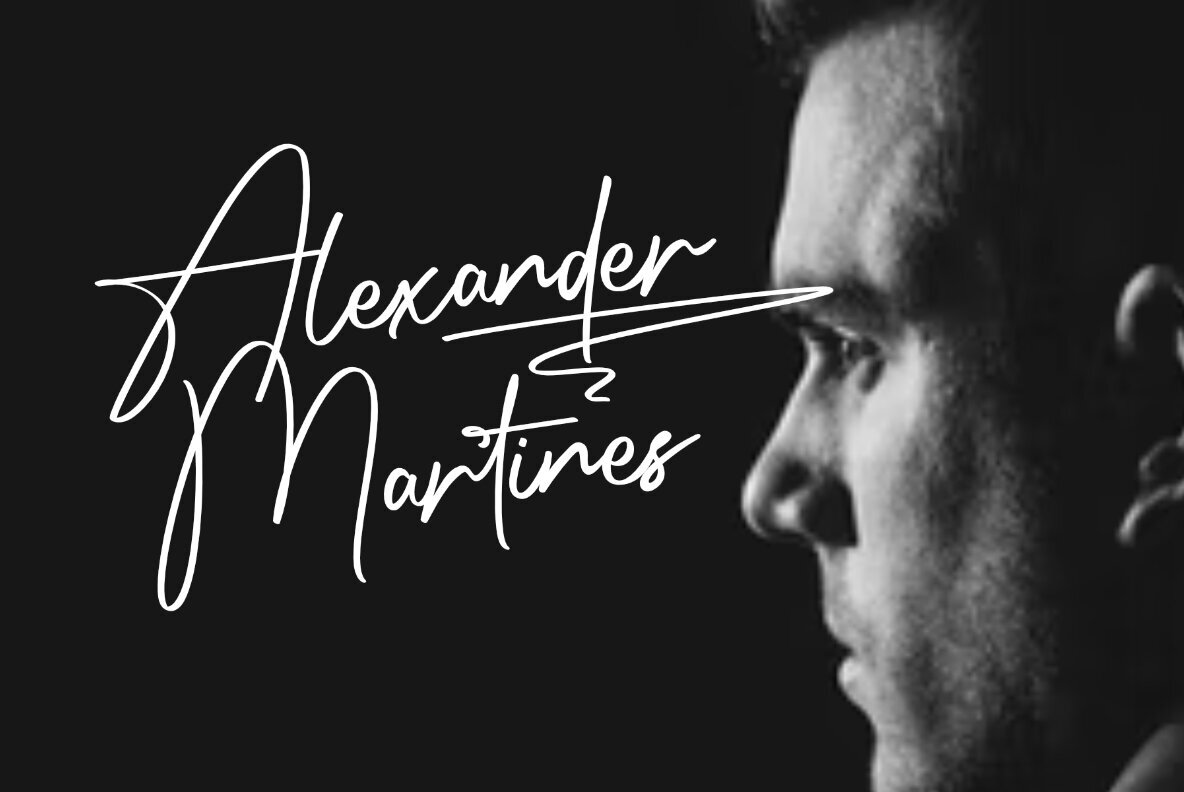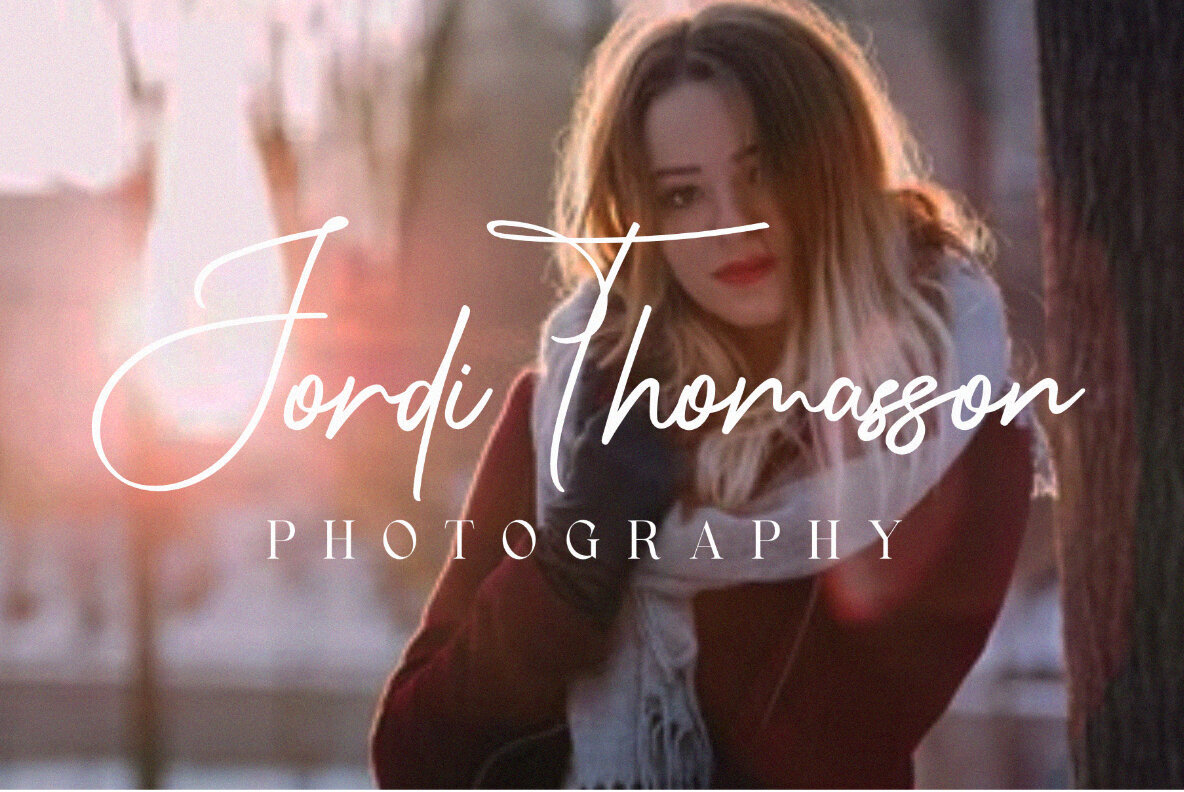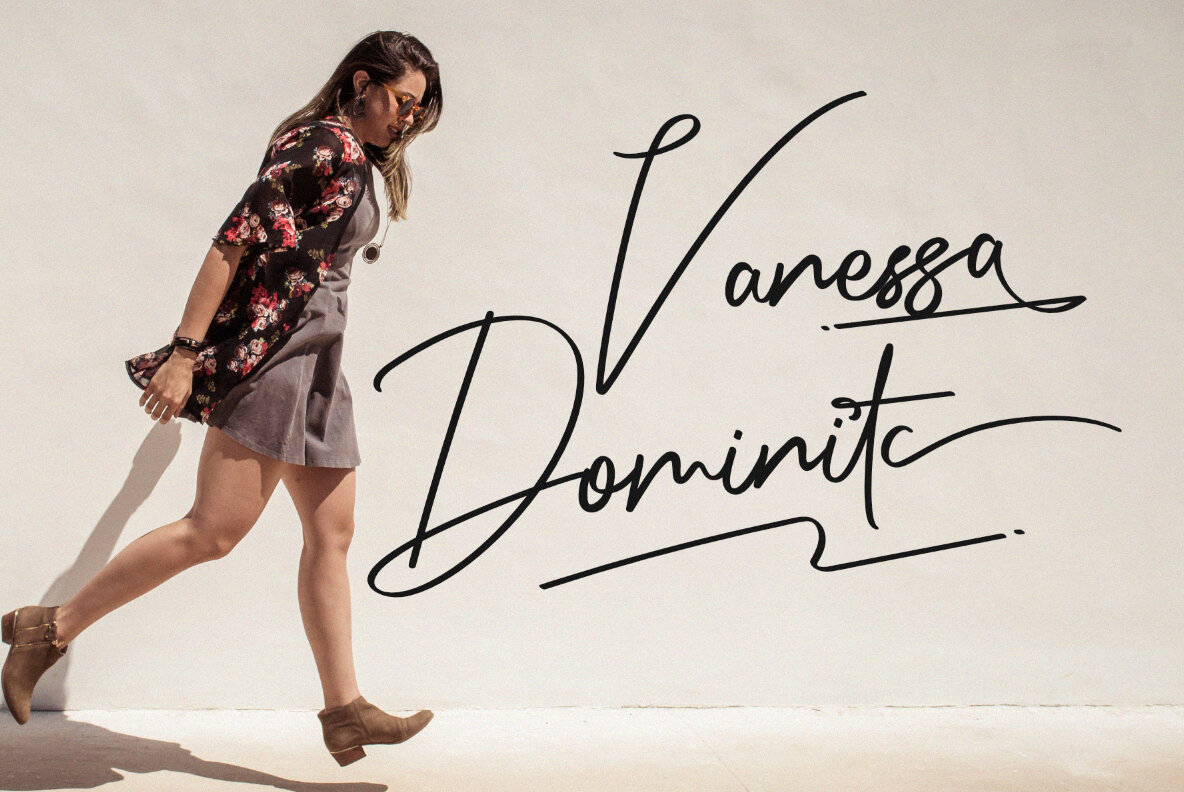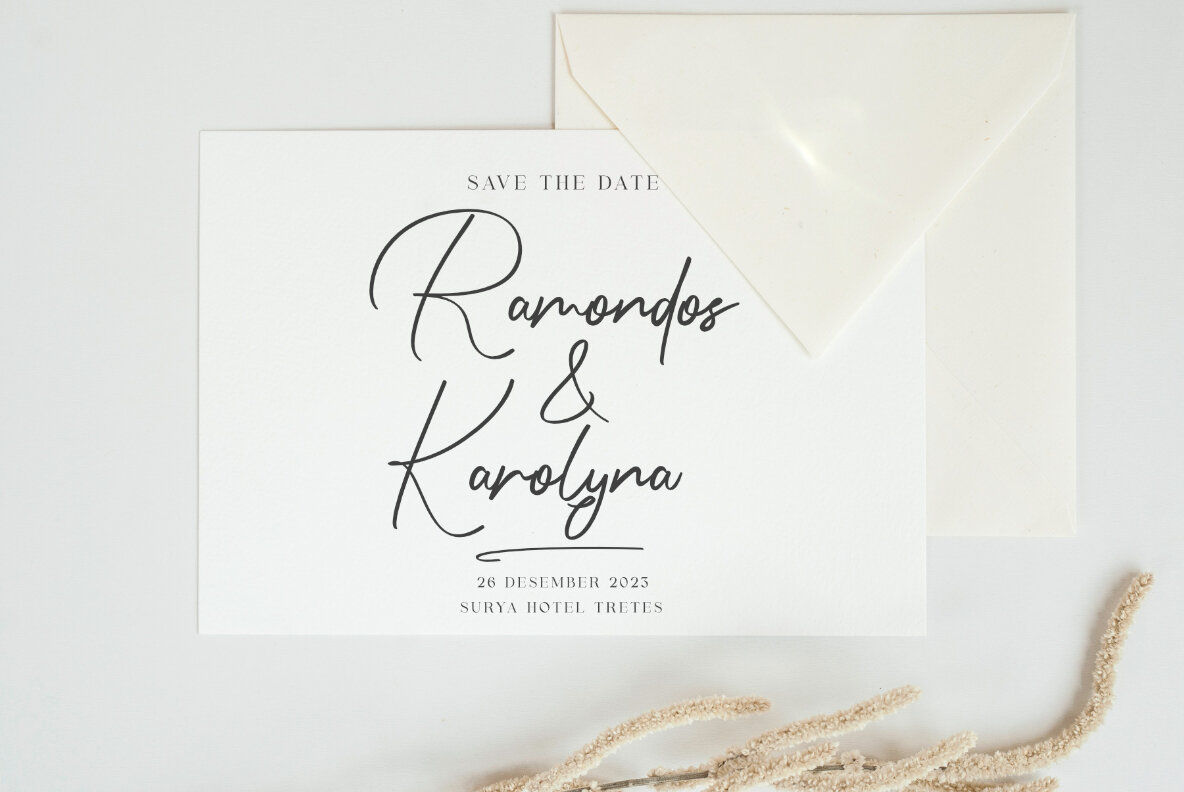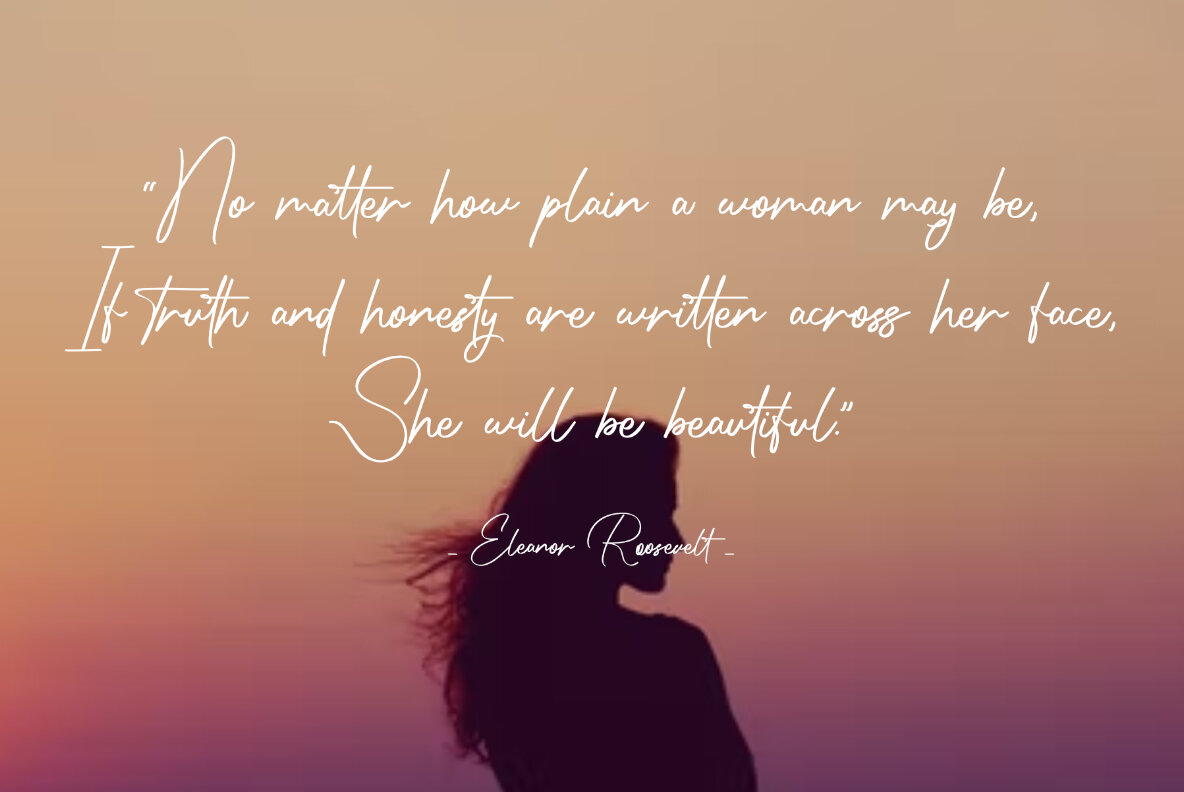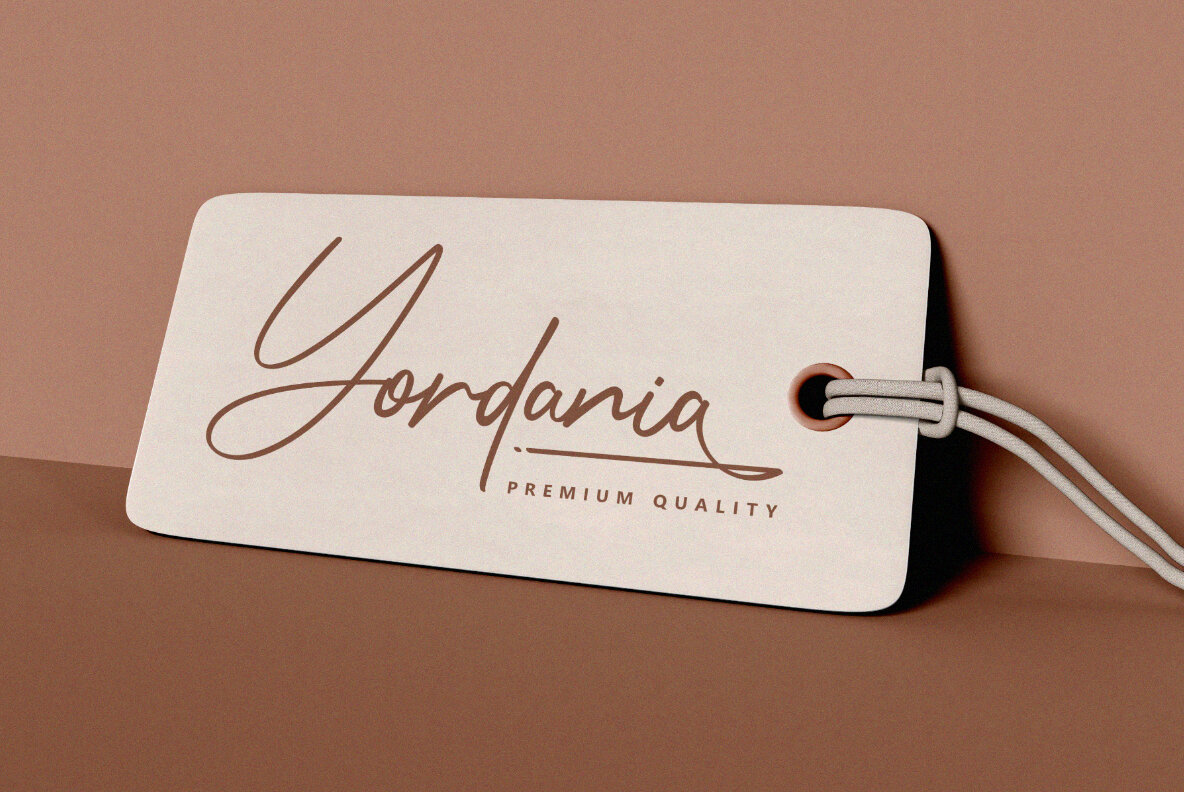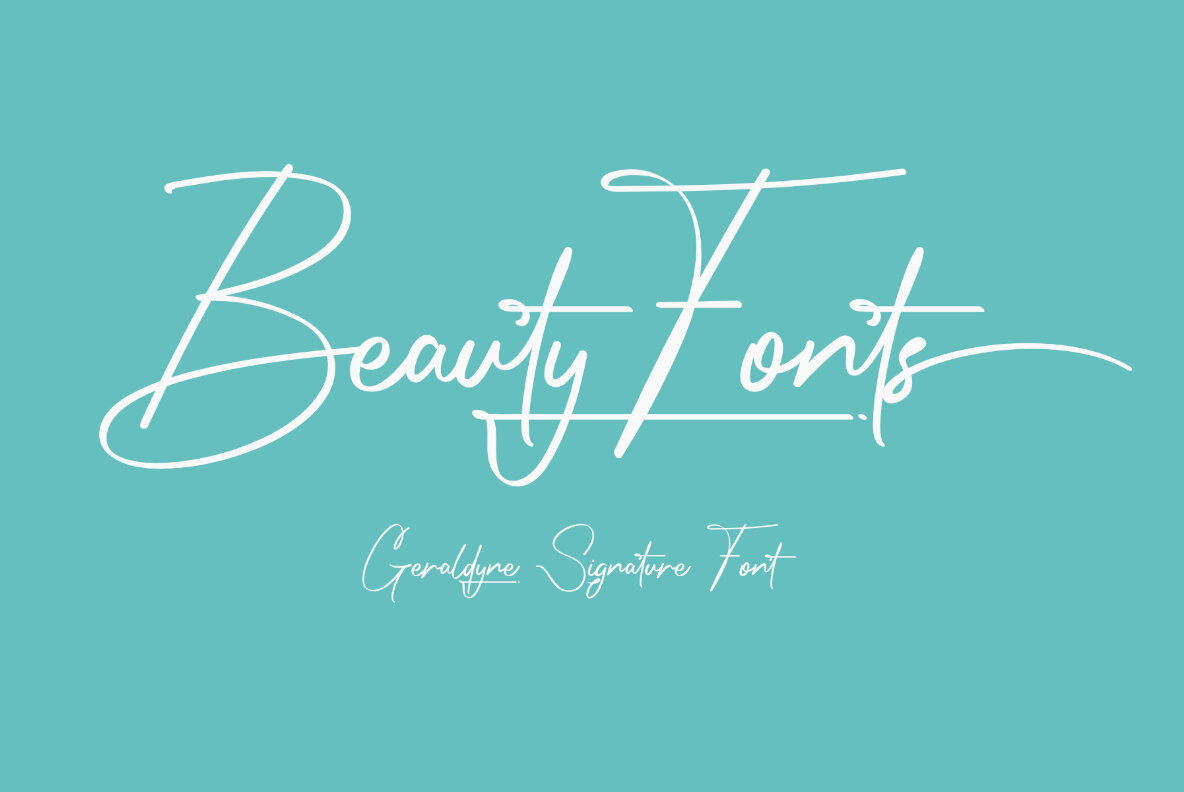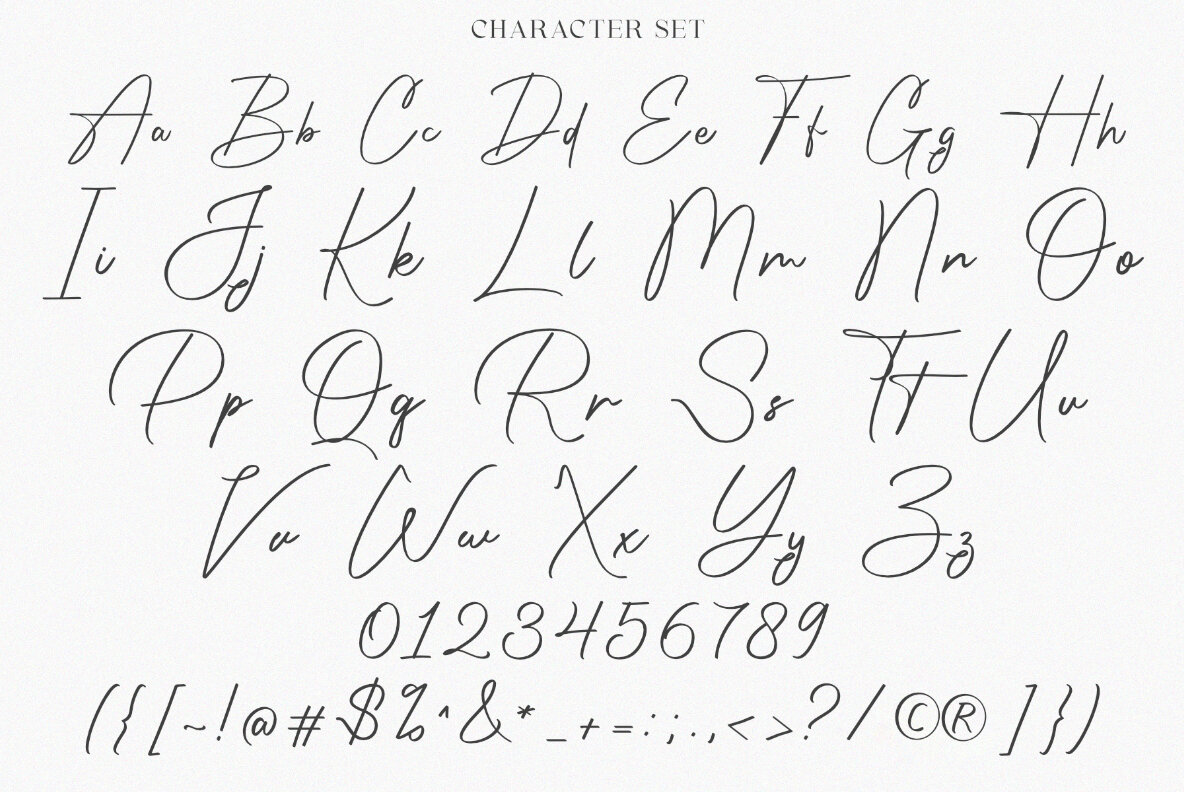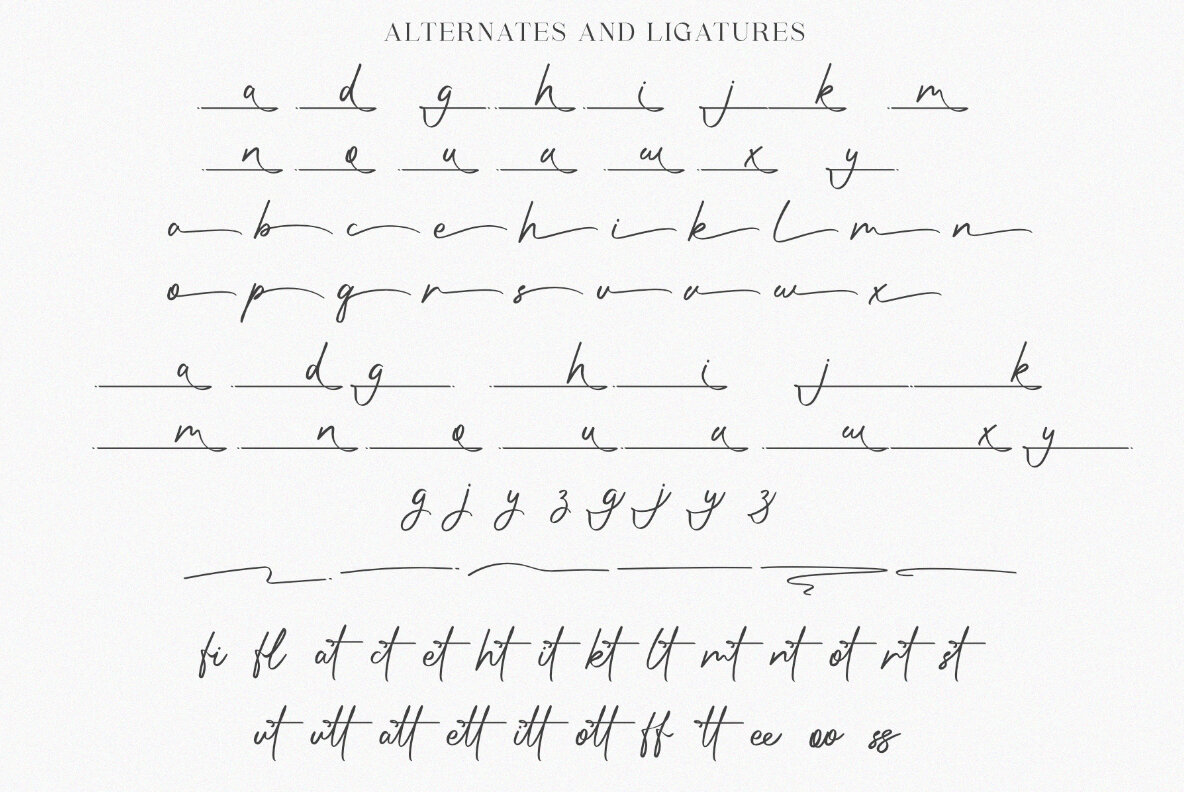
Geraldyne Signature Font
GeraldyneSignature Regular
Introducing Geraldyne Signature, a striking handwritten font that combines the fluidity of script with a refined aesthetic. Its design is ideal for projects requiring a personal touch, offering a seamless fit for both digital and print applications. Whether you're working on stationery, packaging, apparel, or creating memorable moments through wedding invitations and greeting cards, this font's versatility shines through. Social media graphics, planners, and branding efforts also benefit from Geraldyne Signature's unique charm. For optimal use of alternative letters and ligatures, consider design applications such as Photoshop, InDesign, or Illustrator, which support OpenType features.Geraldyne Signature: A Handcrafted Script That Captures Elegance